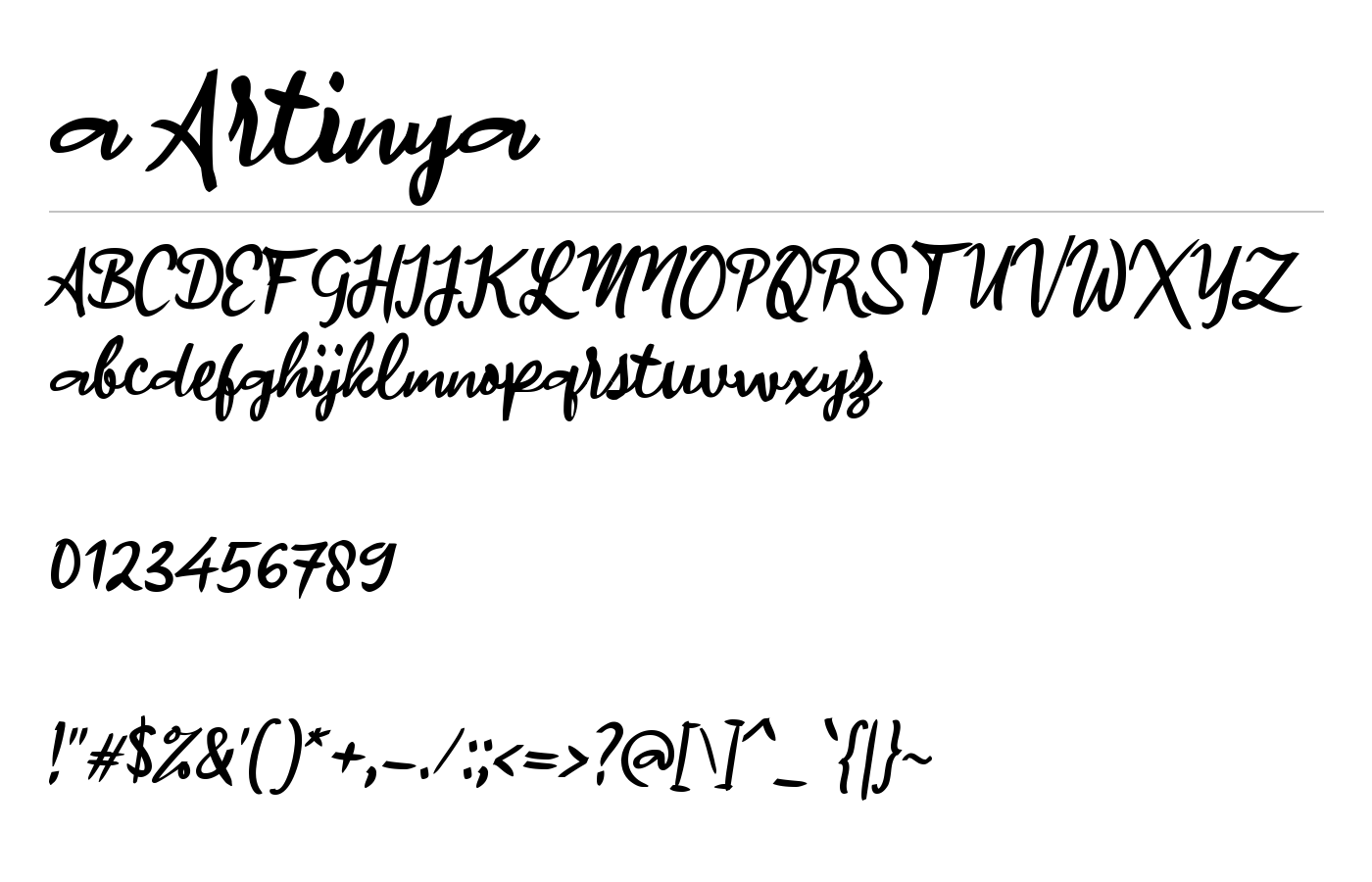
Artinya is a lively script font that combines elegant, flowing letterforms with a bold, confident stroke, making it both stylish and readable. Its fluid, hand-drawn style conveys a friendly, artistic charm, ideal for creative branding, invitations, and eye-catching headlines. This font works well where a personal yet polished look is desired, adding warmth and personality to designs.
a Artinya Font